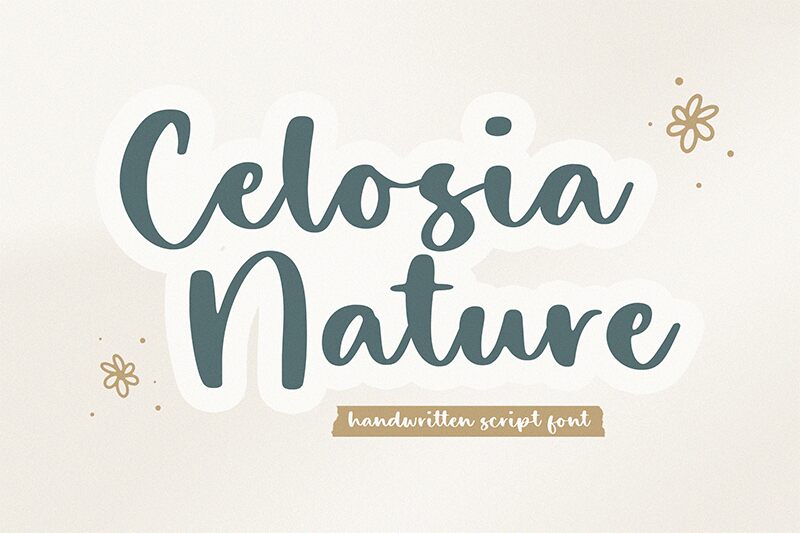
Celosia Nature
The Celosia Nature font is a captivating brush script that exudes a organic, handcrafted charm. Meticulously crafted by Timur Type, this font boasts a lively, expressive quality that effortlessly blends the refined and the rustic. The bold, sweeping strokes and seamless ligatures create a sense of movement and fluidity, while the irregular edges lend an artisanal touch that evokes a warm, authentic ambiance.
Celosia Nature's versatility makes it a compelling choice for a wide range of design applications, from editorial layouts and branding to packaging and invitations. Its dynamic, yet legible personality lends itself beautifully to headlines, titles, and display text, injecting a touch of refined whimsy into any project. Whether you're crafting a modern, eco-conscious brand or curating a romantic, handcrafted aesthetic, the Celosia Nature font is a standout selection that will captivate your audience.